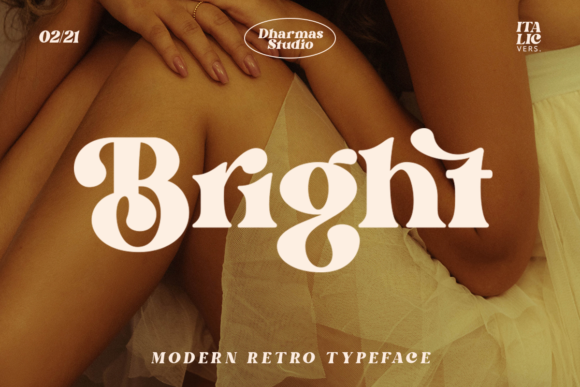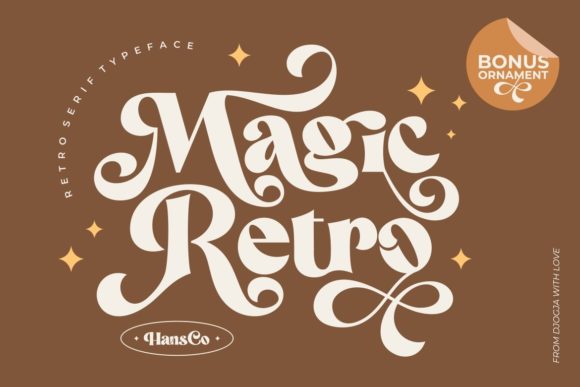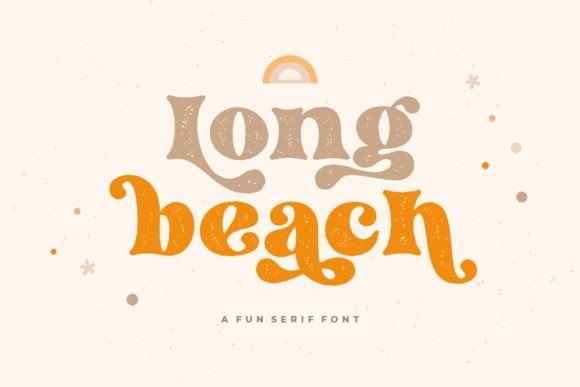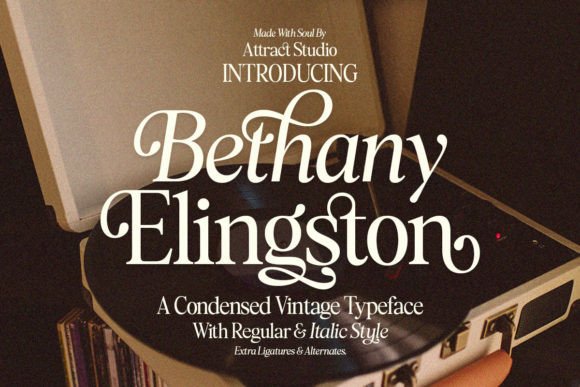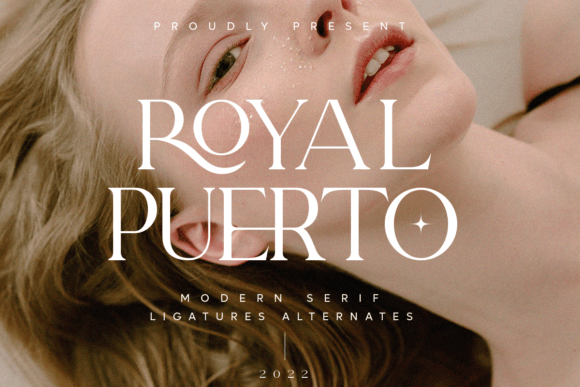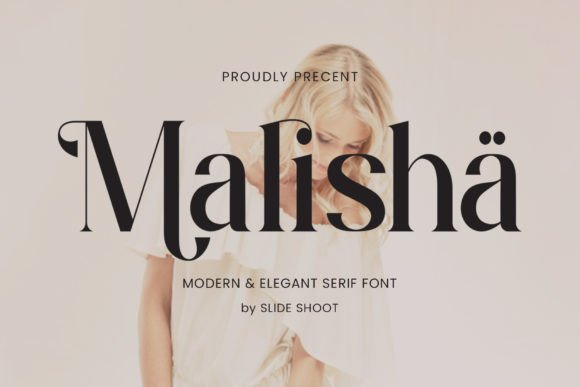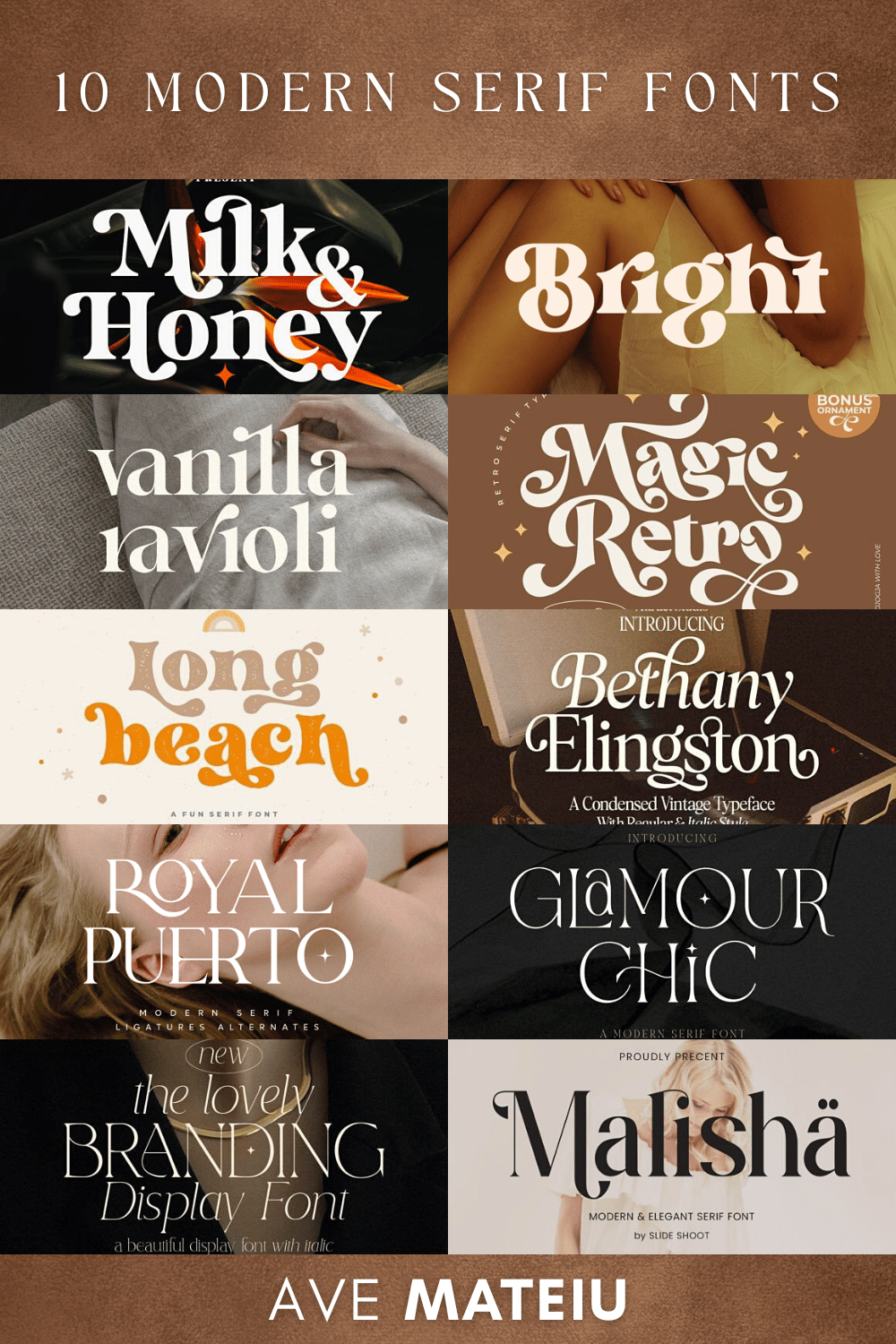
From logos to magazine titles, the font used in branding can make or break the overall look. Serif fonts can be particularly helpful in creating a classic yet modern style.
But what are the best serif fonts to give your branding a stylish, modern edge?
In this article, we will share 10 of the best modern serif fonts that can add an extra layer of sophistication to any brand.
So if you’re ready to give your business’ branding a facelift, read on!
Why serif fonts?
Serif fonts are considered more traditional, classic, and professional. When used for branding, they convey an air of sophistication, quality, and trustworthiness.
While serif fonts have been around for centuries, they’ve seen a resurgence in popularity in recent years as more brands look to add a touch of class to their designs.
Choosing a serif font for your brand can help it stand out from your competition and convey the message that you’re a serious business.
Serif fonts can add a level of elegance and refinement to your designs, helping them look more high-end and luxurious.
If you’re looking to add a touch of sophistication to your brand, a serif font is a great place to start.
How can serif fonts elevate your brand?
In a world where first impressions are everything, having a sharp, modern logo can be the difference between a potential customer taking you seriously or not.
The right font can also help communicate the tone of your brand.
A minimalist, modern serif font conveys a different message than an ornate serif font with classic roots.
And that’s not to say that one is better than the other – it just depends on what kind of message you want your brand to communicate.
If you want to convey a message of sophistication and luxury, then a classic serif font is probably the best.
However, if you want to communicate a message of modernity and innovation, then a more minimalist serif font is the way to go.
Ultimately, the right font for your brand is going to be the one that speaks to your target audience and conveys the message you want your brand to communicate.
10 modern serif fonts that will make your brand shine
There is an endless amount of serif fonts available on the web, but finding the right one for your brand can be a challenge.
Here are 10 of the best modern serif fonts that are sure to make your brand stand out from the crowd:
How to choose the right serif font
When it comes to choosing the right serif font for your branding, there are a few things you need to take into account.
Here are a few tips:
1. Before you choose the right serif font, you need to define your brand’s personality. What kind of voice does your brand have? Is it serious or playful? Formal or relaxed? Traditional or modern?
Answering these questions will help you narrow down your font options.
2. Another important factor to consider is readability.
A font may look great on paper, but if it’s hard to read, it’s not going to be very useful for your brand. A serif font is generally more readable than a sans serif font, but that doesn’t mean all serif fonts are created equal.
When choosing a font, be sure to test it out in different sizes and weights to see how easy it is to read at a glance.
3. Once you’ve narrowed down your choices, it’s time to start thinking about the specific details of your font. For instance, what sort of spacing do you want between letters? Do you want your letters to be all the same height, or do you want them to vary?
These details can make a big difference in how your font looks, so it’s worth taking the time to consider them carefully.
4. Finally, don’t forget to think about what sorts of products or materials you’ll be using your font on.
If you’re planning on using it for digital purposes, you’ll need to make sure it looks good on screen.
If you’re planning on printing it out, you’ll need to make sure it looks good on paper. Keep these factors in mind as you narrow down your choices.
Tips for creating branding consistency
When it comes to branding, consistency is key. This means having a cohesion between all aspects of your brand identity, from your logo to your color scheme to your typography.
Below are seven tips to help you create branding consistency for your business:
1. Use the same colors, fonts, and logos across all channels.
2. Make sure your website, social media accounts, and marketing materials have a consistent look and feel.